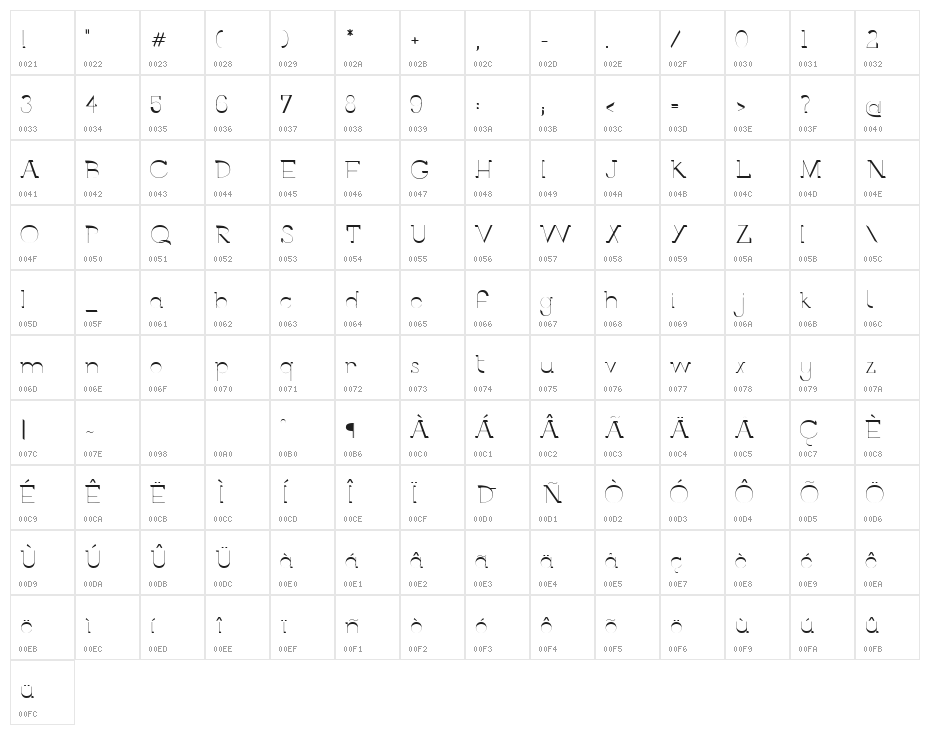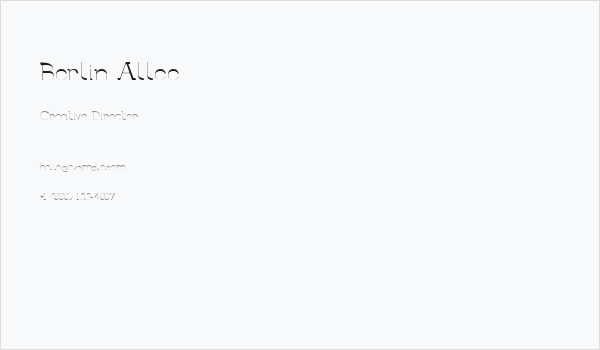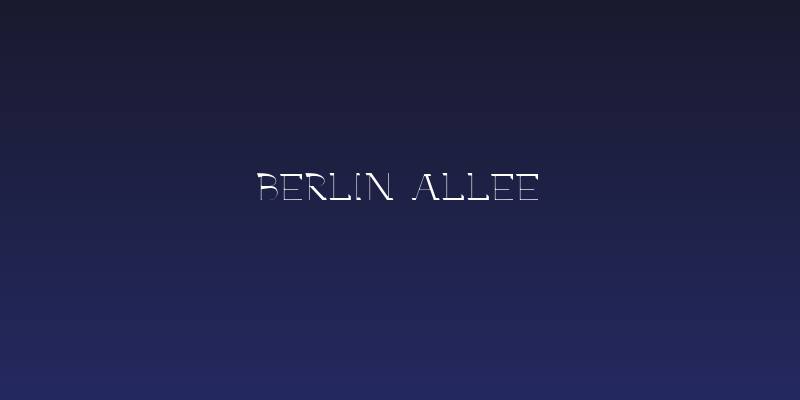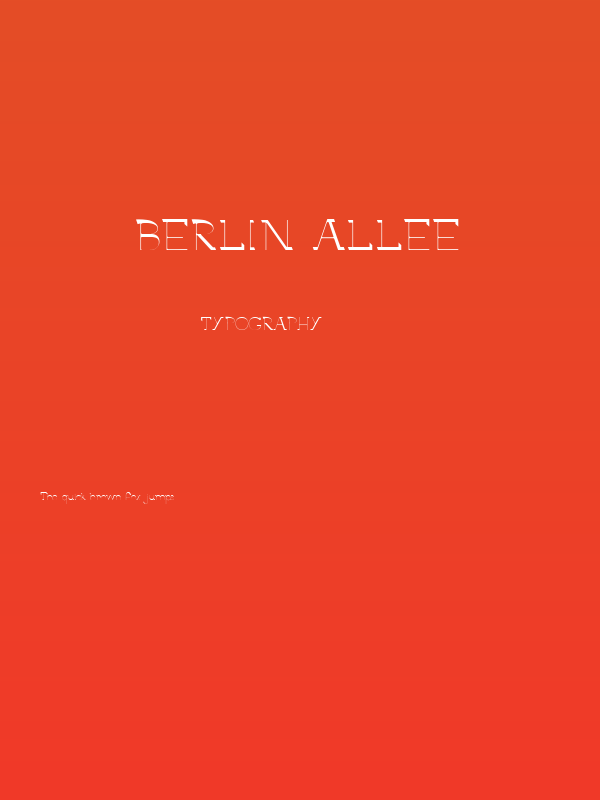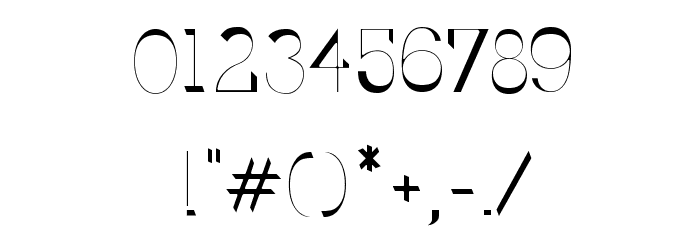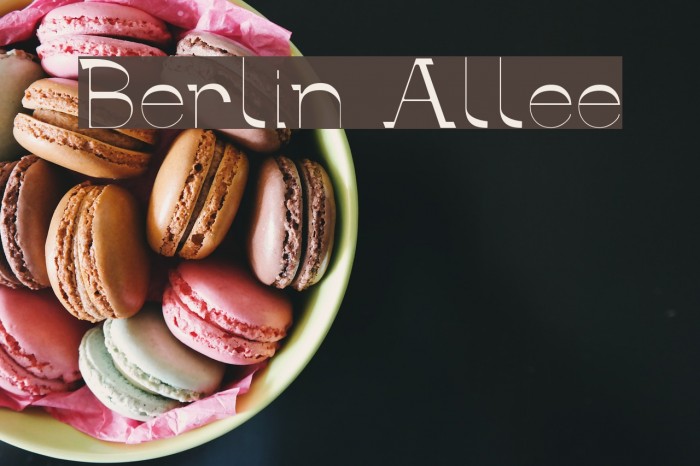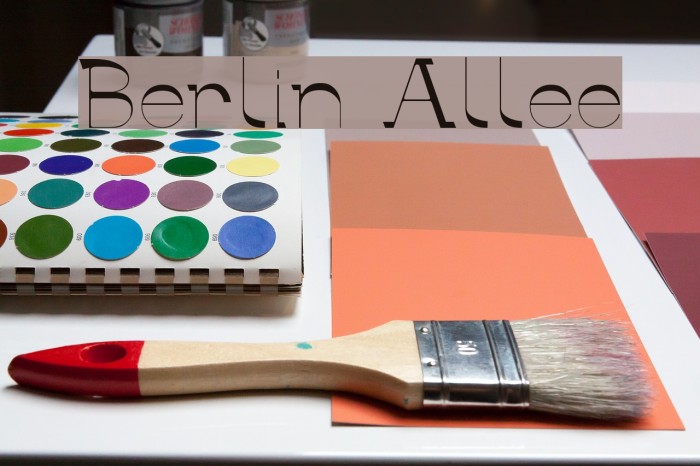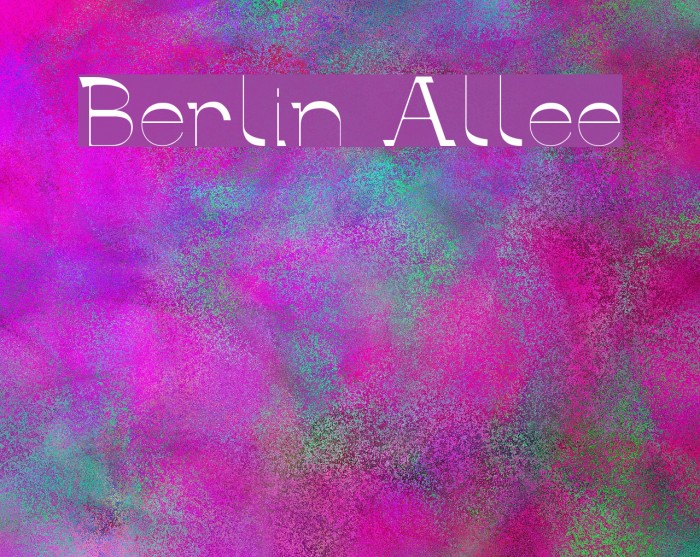
Berlin Allee Font
Berlin Allee Description
This font features a unique blend of modern and classic elements, with a distinct geometric influence. The uppercase letters are bold and structured, while the lowercase letters maintain a sleek and elegant form. The numbers are clean and straightforward, complementing the overall aesthetic. Special characters are designed with a contemporary flair, adding to the font's versatility. The combination of thick and thin strokes creates a dynamic contrast, making it suitable for various design applications.
| Proposed Projects | Ideal for branding, editorial design, and modern web design projects. |